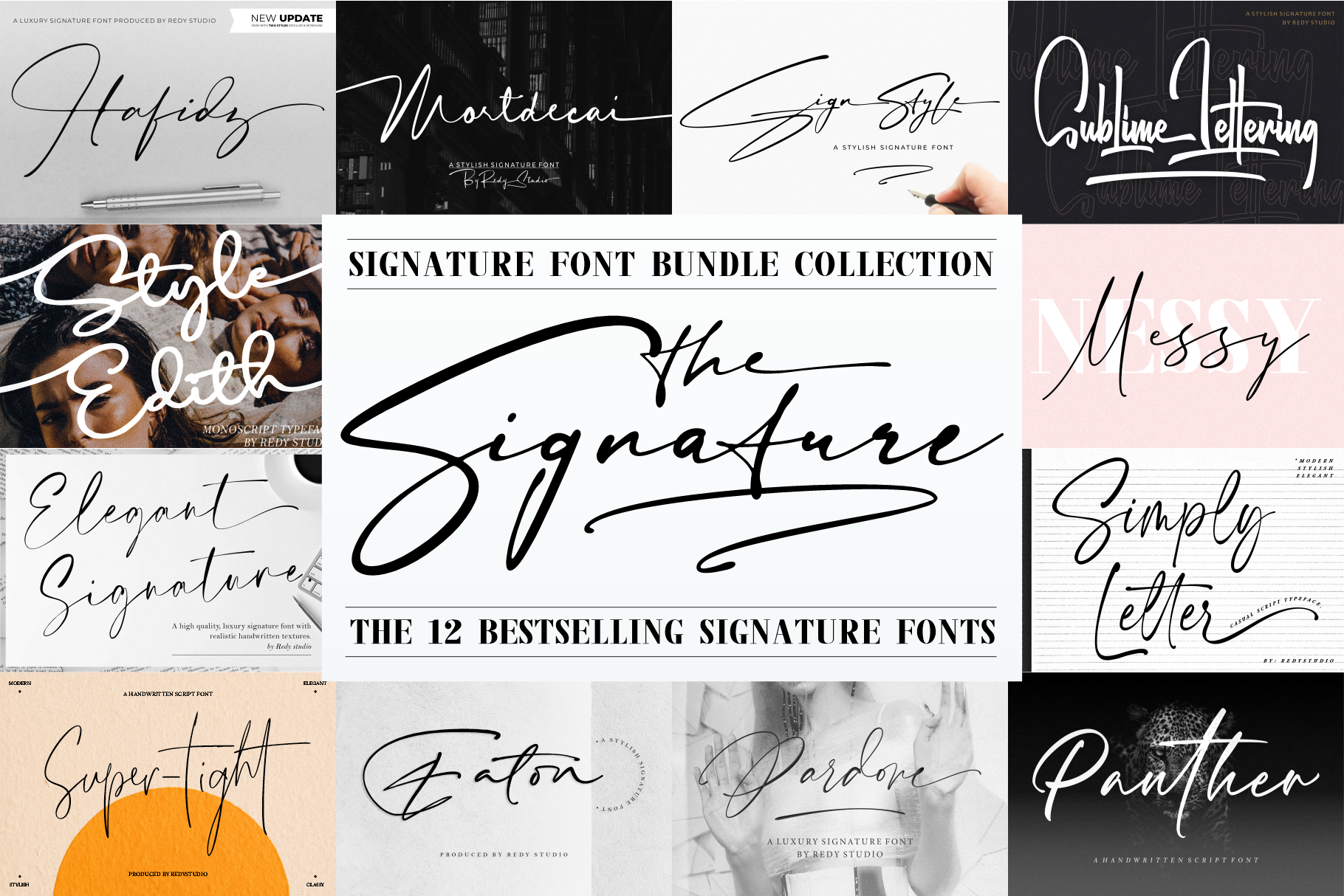
The Signature Font Bundle Collection
The Signature Font Bundle Collection - 85%OFF - Ideal for Logos, Branding, and More
Are you in search of top-quality signature fonts that will elevate your design projects to the next level? Look no further! The Signature Font Bundle Collection is a meticulously curated compilation of signature fonts that have been handpicked to cater to a wide range of design needs.
Fonts included:
- Hafidz: https://creativemarket.com/NFAJRIREDY/3463399-Hafidz-%E2%80%93-Luxury-Signature-Font
- Mortdecai: https://creativemarket.com/NFAJRIREDY/3789399-Mortdecai-%E2%80%93-Luxury-Signature-Font
- Sign Style: https://creativemarket.com/NFAJRIREDY/4164877-Sign-Style-%E2%80%93-Elegant-Signature-Font
- Style Edith: https://creativemarket.com/NFAJRIREDY/10263973-Style-Edith-%E2%80%93-Monoscript-Typeface
- Pardone: https://creativemarket.com/NFAJRIREDY/4442347-Pardone-Luxury-Signature-Font
- Elegant Signature: https://creativemarket.com/NFAJRIREDY/4626256-Elegant-Signature-%E2%80%93-Casual-Chic-Font
- Simply Letter: https://creativemarket.com/NFAJRIREDY/7232599-Simply-Letter-Font
- Panther: https://creativemarket.com/NFAJRIREDY/5491413-Panther-%E2%80%93-Handwritten-Font
- Eaton: https://creativemarket.com/NFAJRIREDY/5087749-Eaton-%E2%80%93-A-Signature-Font
- Sublime Lettering: https://creativemarket.com/NFAJRIREDY/5931856-Sublime-Lettering-Font
- Messy Nessy: https://creativemarket.com/NFAJRIREDY/3161613-Messy-Nessy-Collection
- Super-tight: https://creativemarket.com/NFAJRIREDY/3491582-Super-tight-%E2%80%93-Modern-Ligatures-Fonts